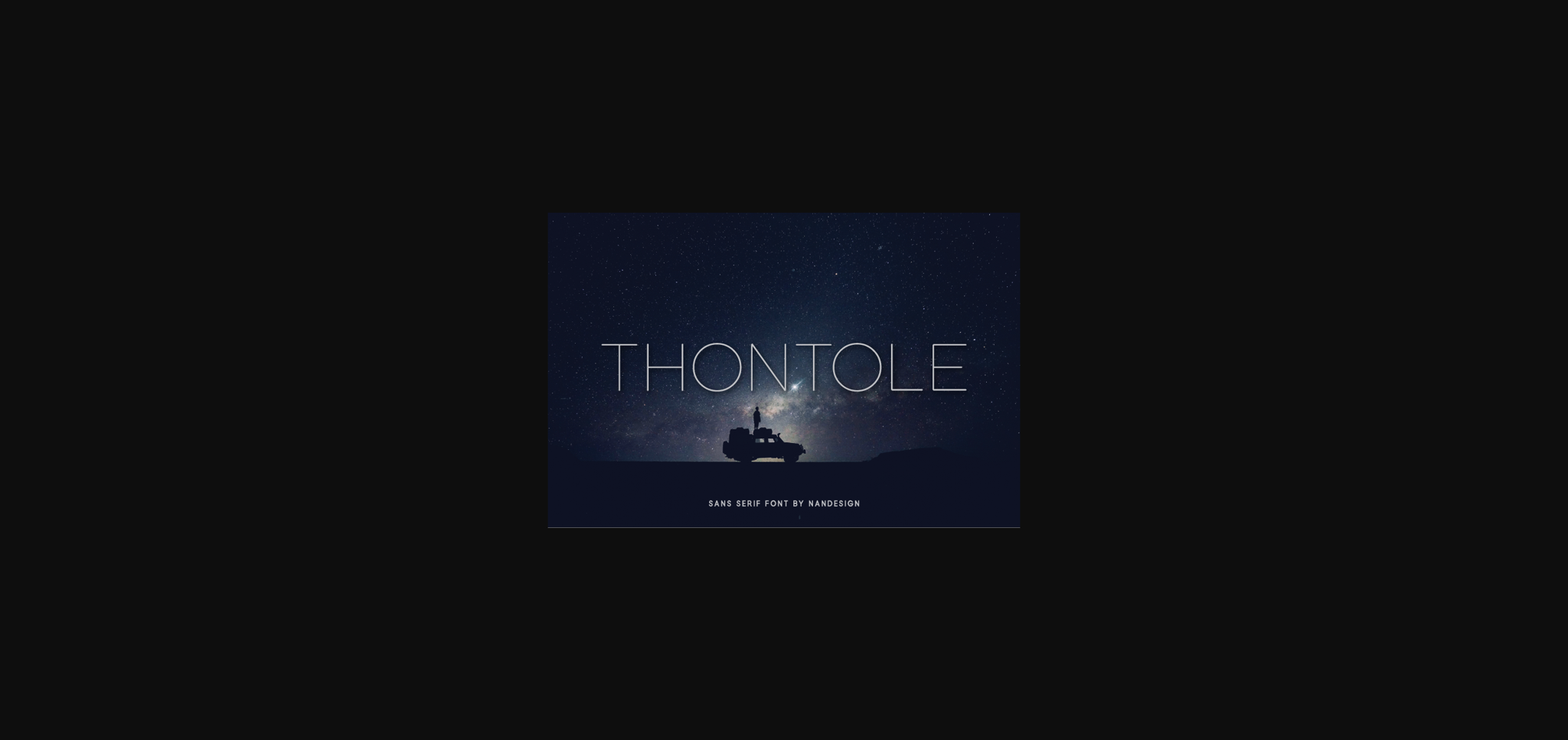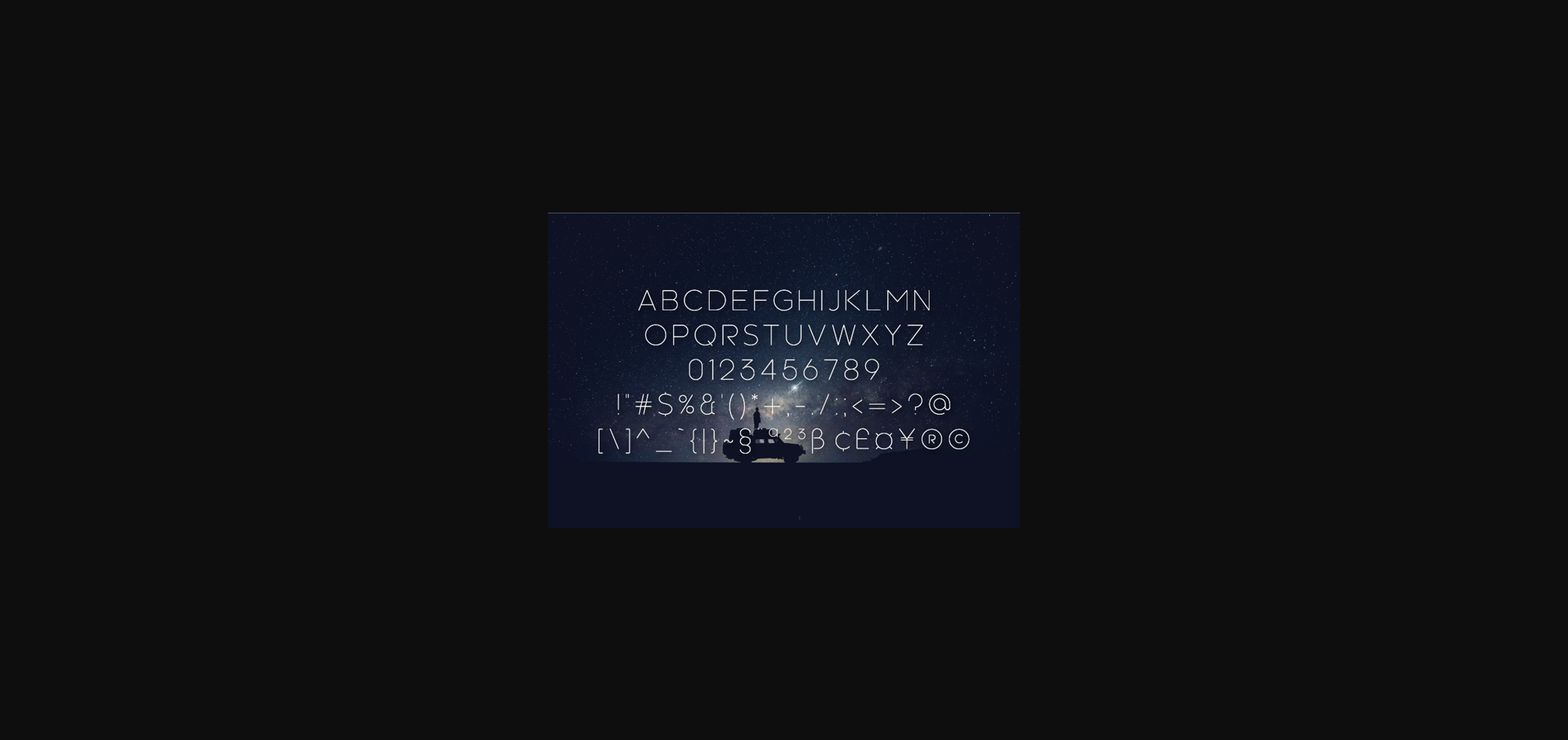
About Thontole Font
Thontole is an elegant sans serif font, that gives a professional look to your design projects. It will elevate a wide range of topics to the highest level, be it branding, headings, logos, labels, and much more!